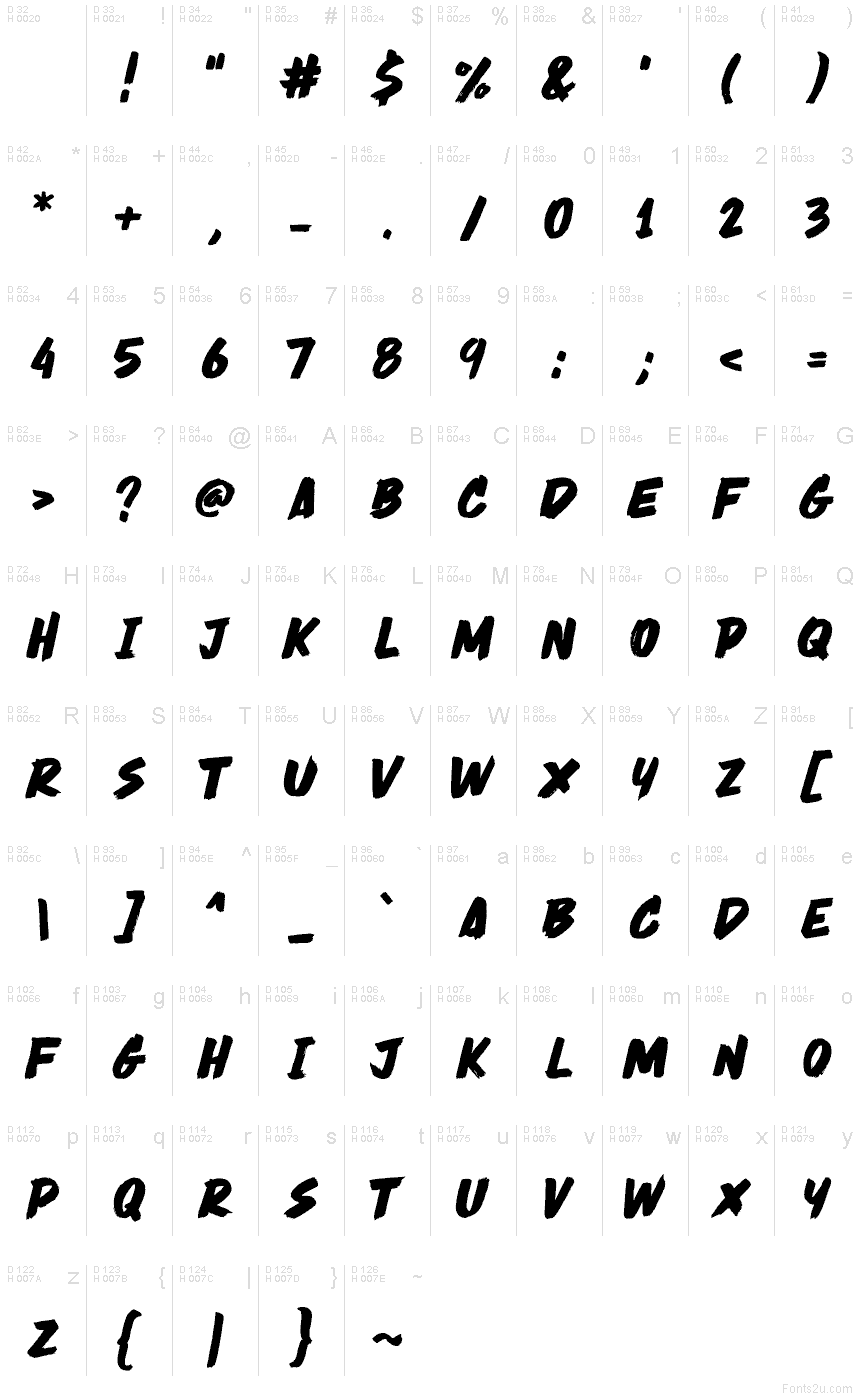
RUSH FLOW
Rush Flow font by Riyadh Rahman is a light brush typeface with a raw style, easy readability, and depth set with the use of bold strokes. The free modern font has solid lower parts that get thin towards the top as if handwritten with almost dried ink.
Use it in advertisement posters and billboards, logotypes of food brands, or product packaging. Business cards, book covers, T-shirt designs will also appear attractive when someone uses this creative display font in them.